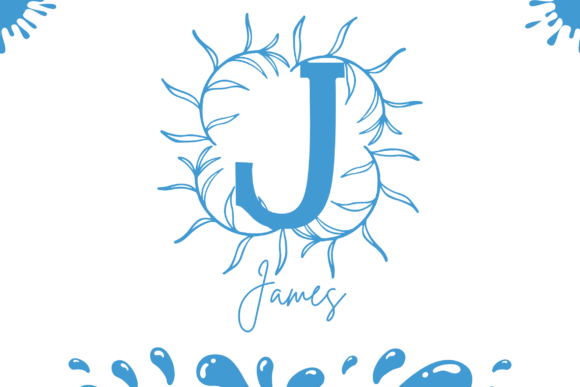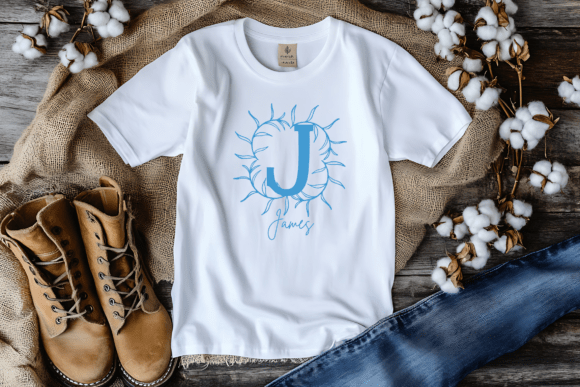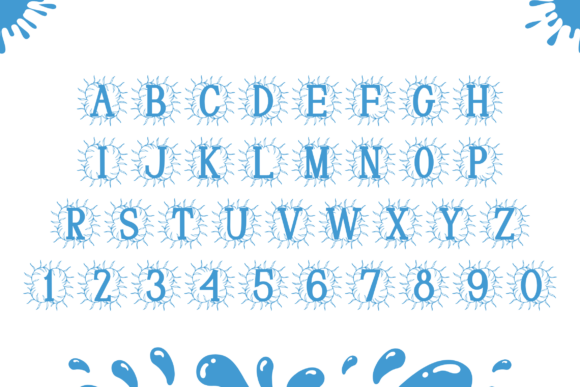
Introduction to Rosalith Monogram Font
As you sit at your desk, surrounded by design tools and a blank canvas, you’re waiting for that spark of inspiration that will bring your creative project to life. It’s in these moments that the perfect font can make all the difference. For designers, finding a high-quality font that exudes elegance and sophistication is a challenge we’ve all faced at some point. That’s where the Rosalith Monogram Font comes in – a stunning, rose-inspired serif monogram font that’s sure to elevate your designs to the next level.
With its balanced proportions, polished serifs, and delicate floral cues, the Rosalith Monogram Font is the perfect addition to any design resource. Whether you’re working on a wedding suite, boutique branding, or a keepsake, this font is sure to make your project shine. And the best part? It’s available for free download, making it a valuable asset for designers of all levels.
Key Features of Rosalith Monogram Font
- High-quality design resource ideal for creative projects, including logos, branding, and more.
- Features a unique and elegant monogram design, perfect for adding a touch of sophistication to any project.
Honest Review: Rosalith Monogram Font
As a designer, I’m always on the lookout for high-quality design resources to elevate my creative projects. Recently, I had the chance to work with the Rosalith Monogram Font, and I must say, it’s been a game-changer. The moment I downloaded it, I knew I was in for a treat.
Here’s what I love about the Rosalith Monogram Font:
- ✨ It’s incredibly versatile, making it perfect for a wide range of design projects, from branding to invitations.
- ✨ The high-quality design and crisp lines give it a sophisticated, elegant feel that’s sure to impress.
- ⚠️ The font is a bit on the heavier side, which may not be suitable for all design projects.
- ⚠️ There’s a slight learning curve when it comes to customizing the font, but it’s nothing a designer can’t overcome.
Overall, I’m thoroughly impressed with the Rosalith Monogram Font. Its unique blend of elegance and versatility makes it an invaluable resource for any designer looking to take their creative project to the next level.
For the best results, use the Rosalith Monogram Font in a creative project that requires a touch of elegance and sophistication. Experiment with different font sizes, colors, and combinations to achieve the desired look.
The Rosalith Monogram Font is perfect for wedding invitations, branding materials, and other high-end design projects. Its high-quality design and transparent background make it an ideal choice for designers looking for a premium font.